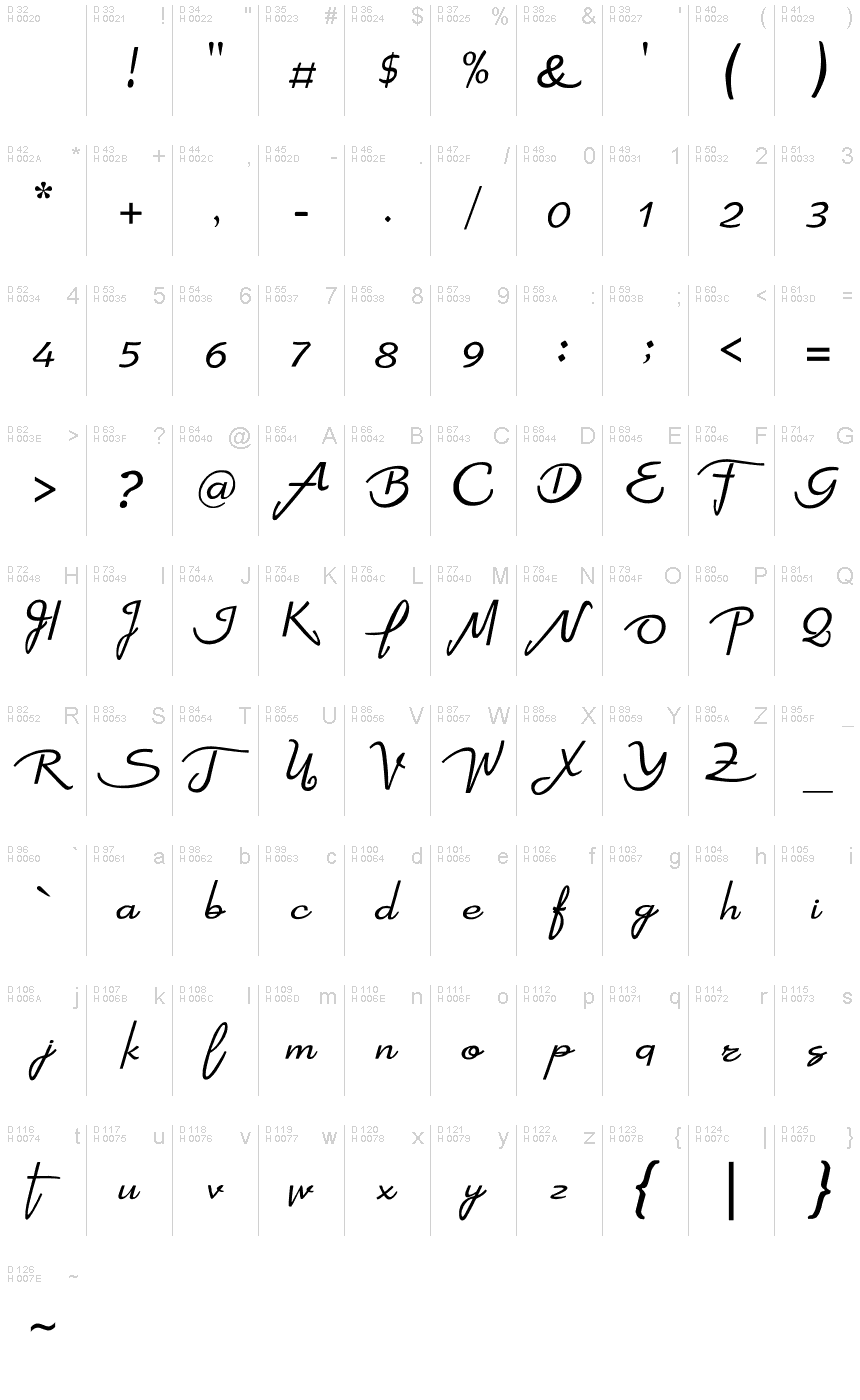
Lattereo is a stunning handwriting font designed by wisnukhayzen that adds a touch of elegance and personal flair to any project. Its light weight makes it perfect for designs that require a delicate touch, such as wedding invitations, greeting cards, and personal branding materials. The handwritten style of Lattereo gives off an authentic and organic feel, allowing your message to appear more sincere and heartfelt. Whether you're creating custom art prints or designing Instagram posts, Lattereo's unique charm will elevate your work to the next level. Try using this semi-bold font in headings or logos for added impact!